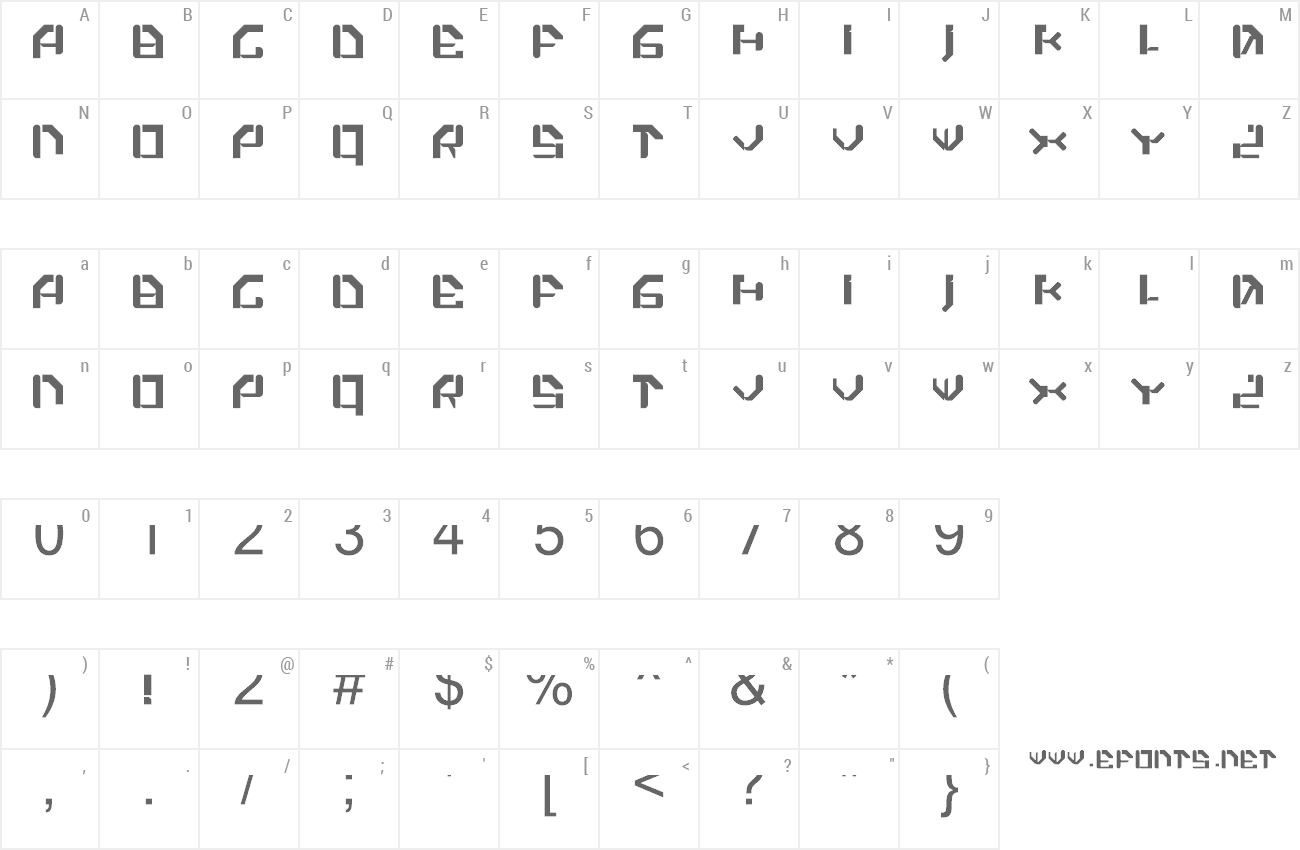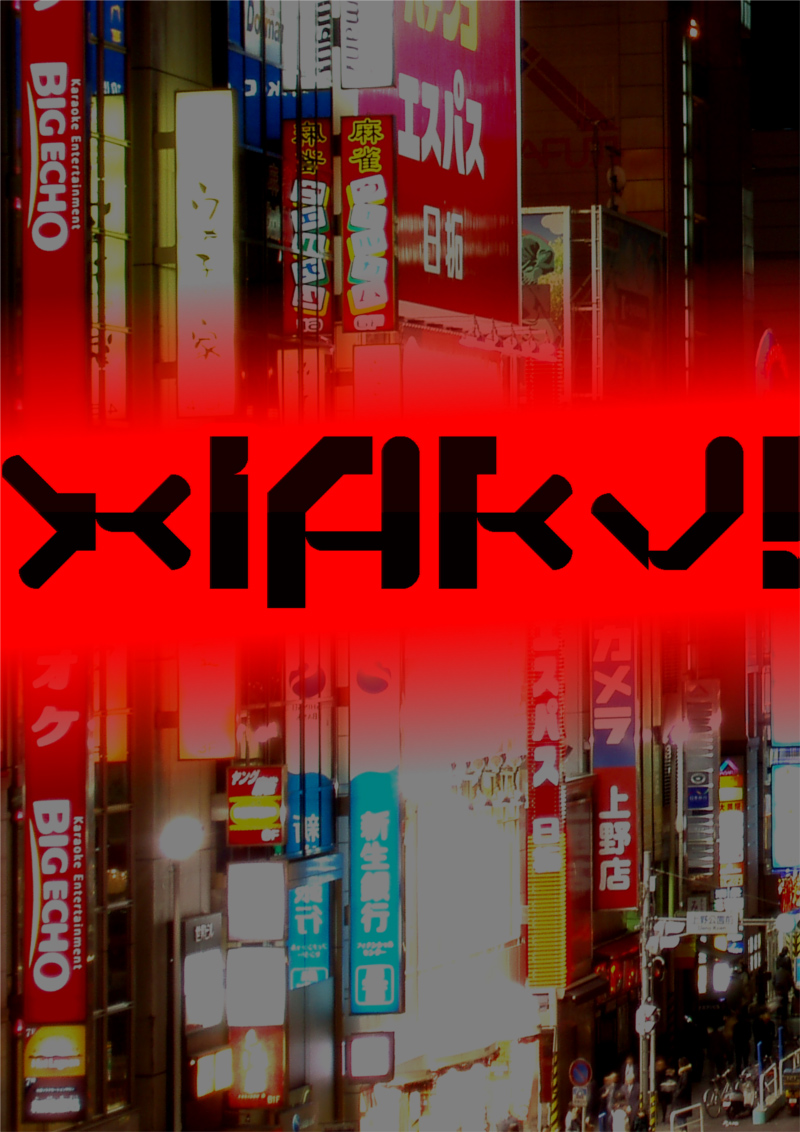
"An experimental font designed with an eastern theme. Some letters carry the theme of an early 'Cutting Edge', while others commonly used in eastern language (e.g X, U, Y, K) are shortened and given an individual look, giving a balance between the 2. The font is designed with this in mind, so it is more suited to eastern words, rather than western. " Made in 2009. |